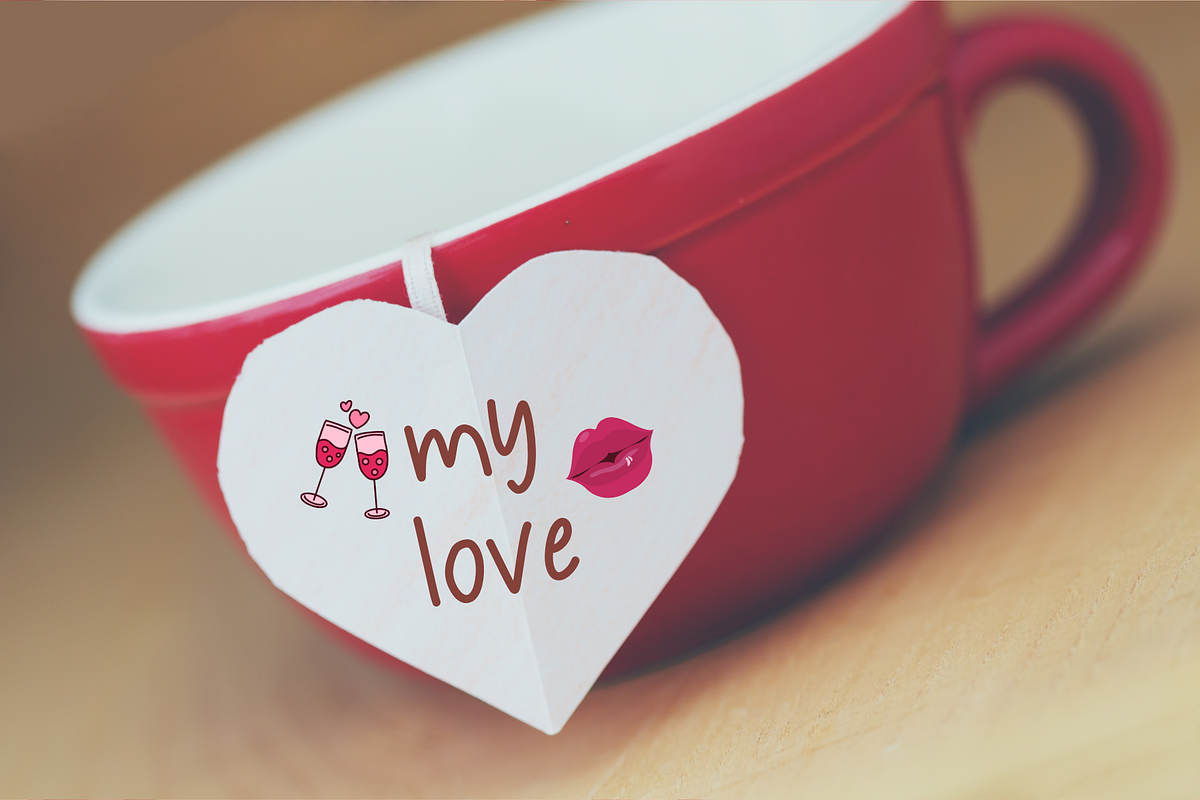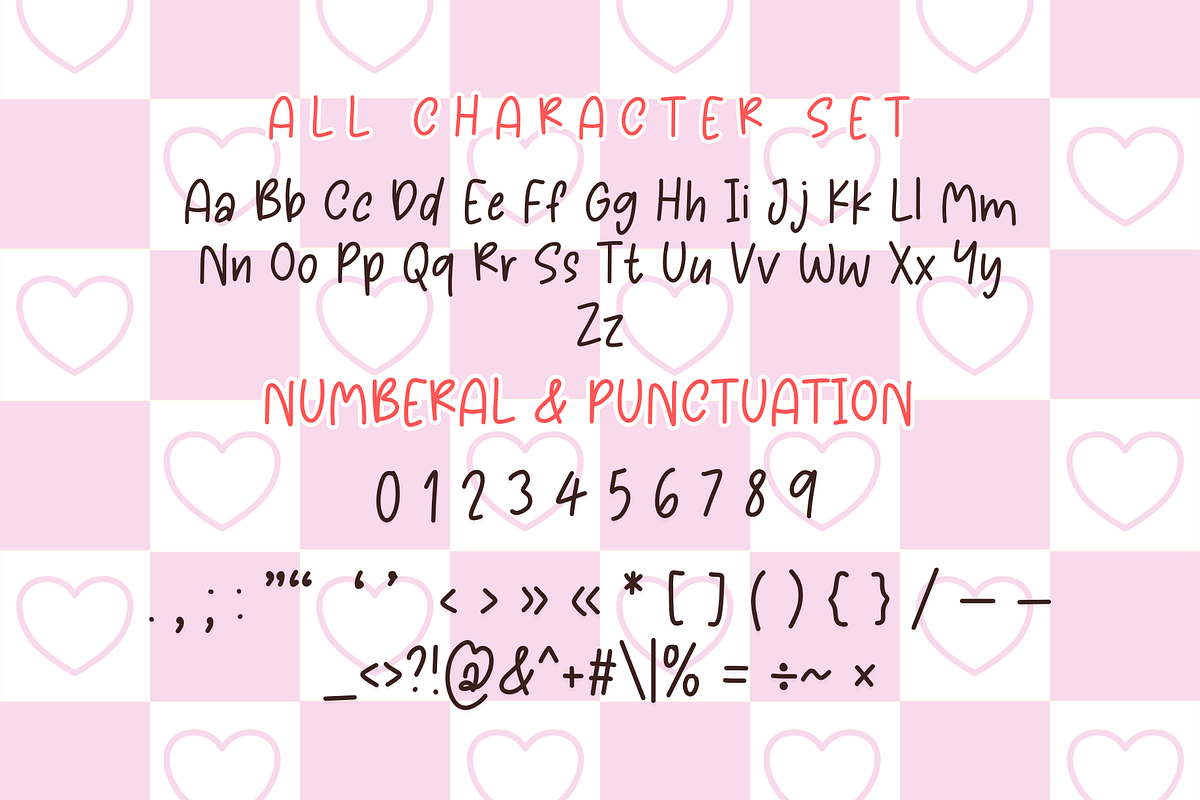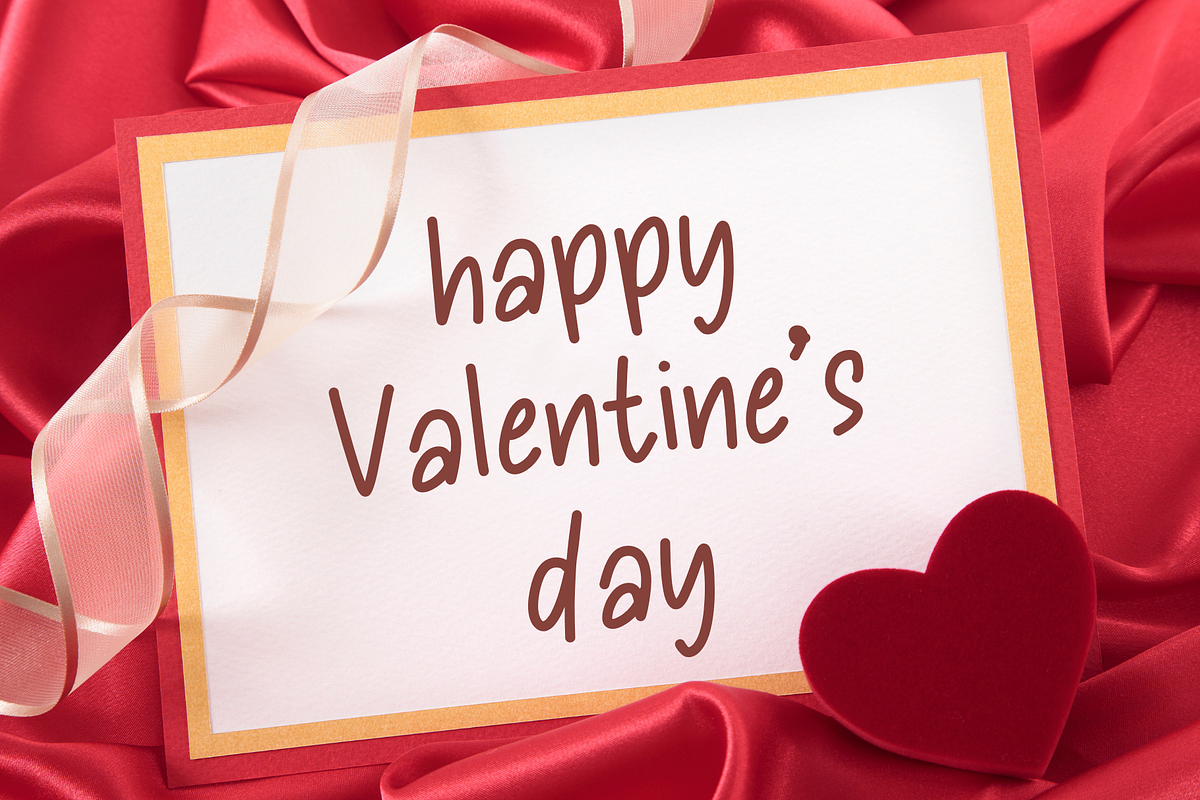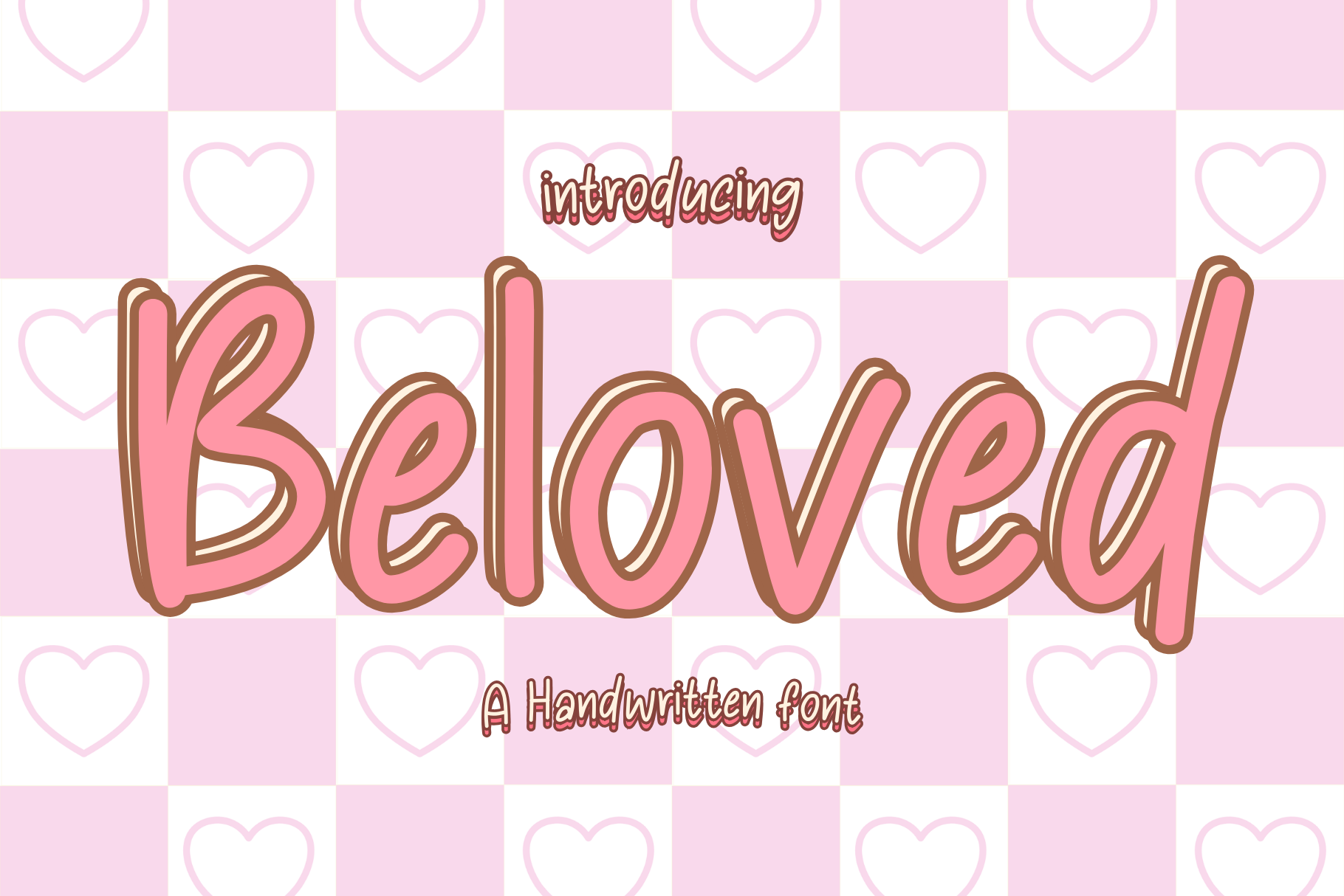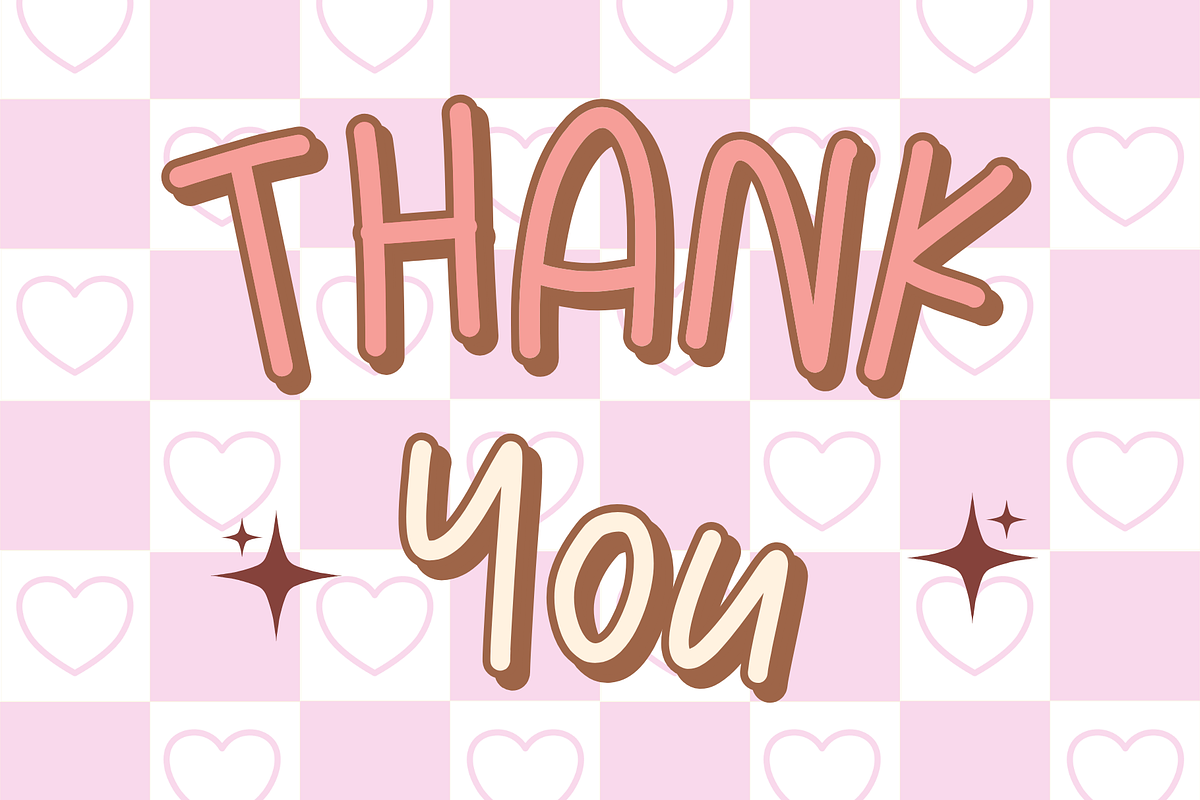
Beloved is a cute handwritten font
Beloved is a cute valentine handwritten font. It embodies playfulness and authenticity and is the perfect choice for all your favorite projects such as blog posts, logos, branding, ads, invitations, greeting cards, planners, photo albums, decorations, and more. Add it to any of your designs, and enjoy the results!